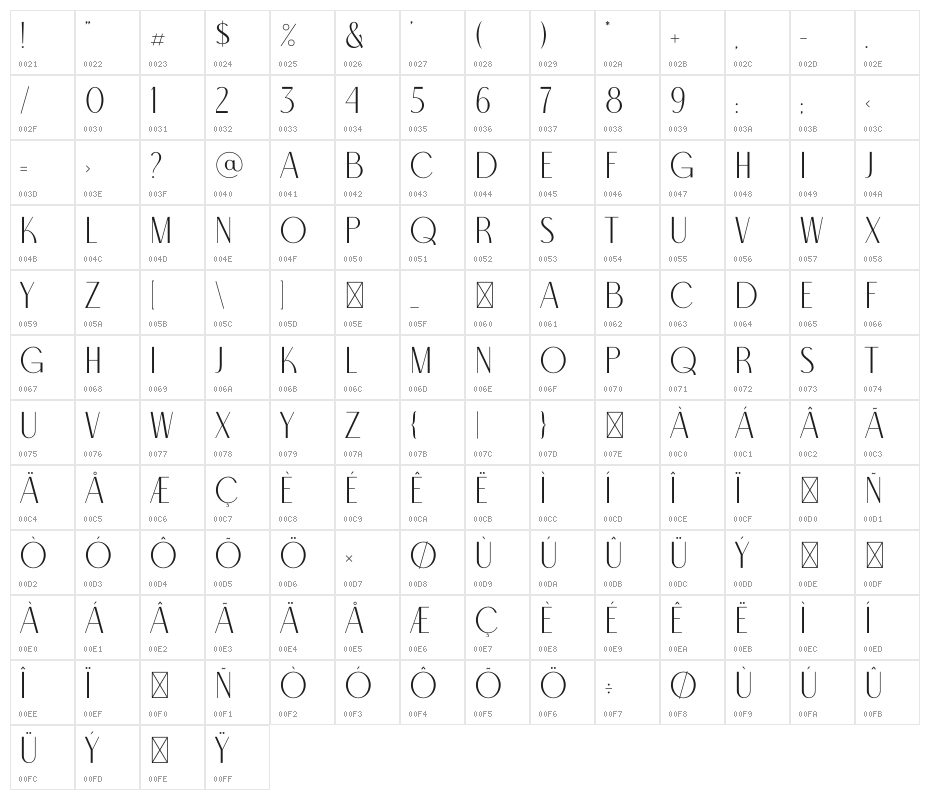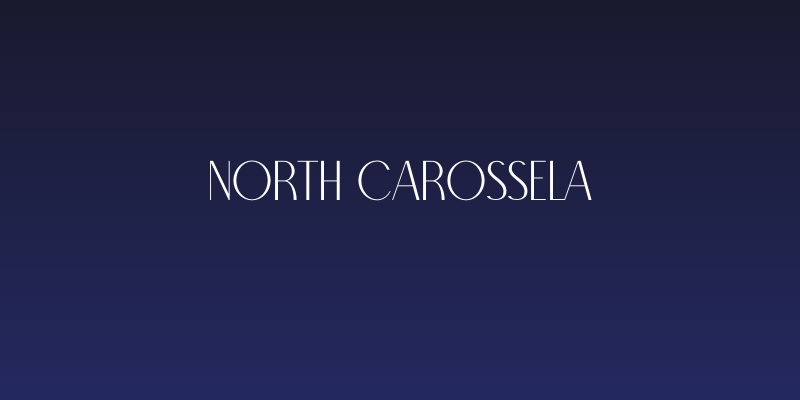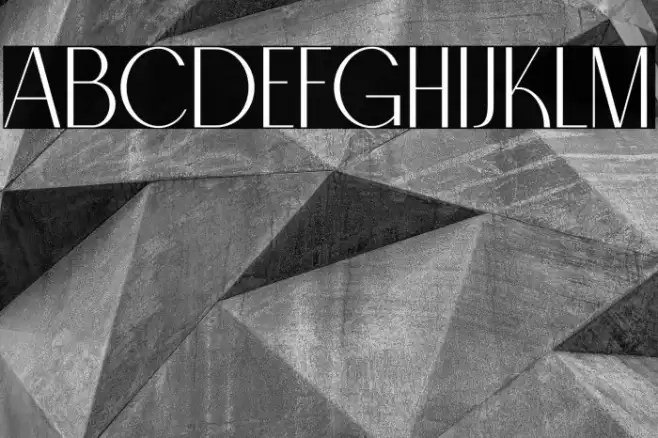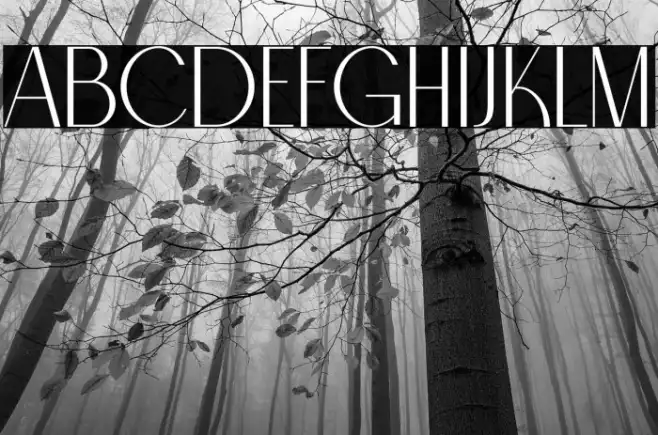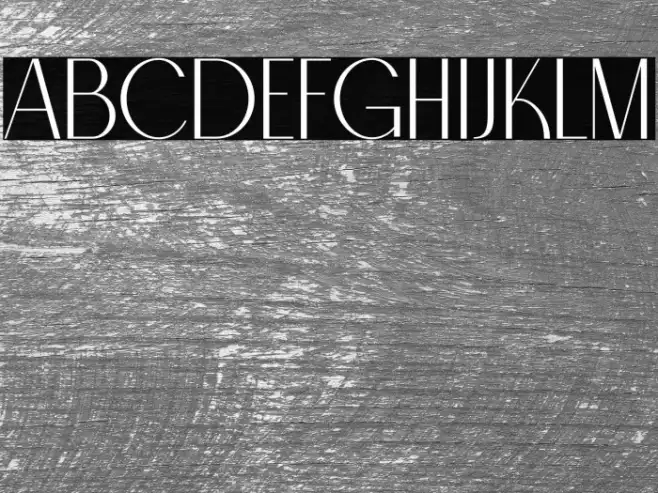
North Carossela Font
North Carossela Description
This font exhibits a refined and elegant style, characterized by its thin and elongated letterforms. The strokes are clean and sharp, with a high contrast between thick and thin lines, giving it a sophisticated and modern appearance. The uppercase letters are tall and narrow, while the lowercase letters maintain a consistent height, contributing to a cohesive and streamlined look. The numerals are similarly styled, with a sleek and contemporary feel. Special characters are designed with the same attention to detail, ensuring uniformity across the entire typeface.
| Overall Style | Elegant and sophisticated |
| Proposed Projects | Ideal for luxury branding, fashion magazines, and high-end product packaging. |